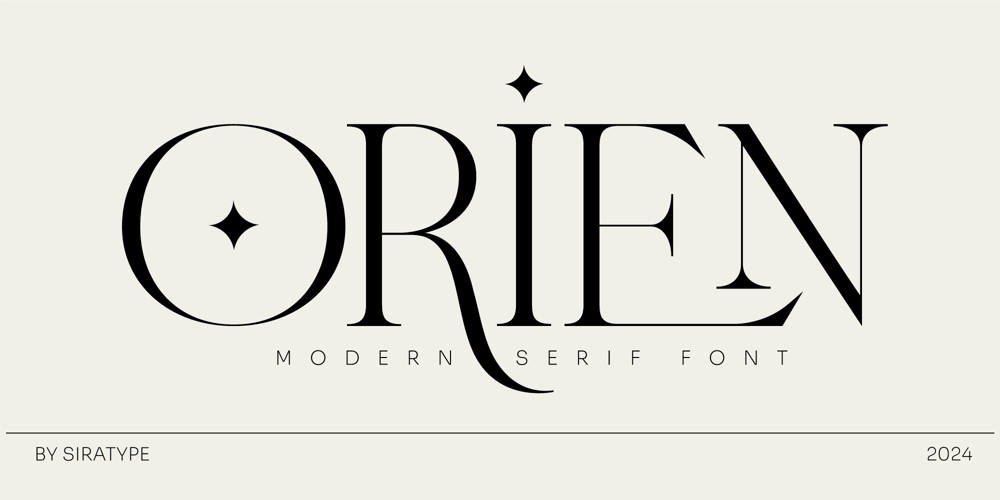
Orien Font Family was designed by Nassira Boufelja and published by Siratype. Orien contains 1 styles and family package options. Orien is a sophisticated and contemporary serif font that seamlessly blends classic serif elements with modern aesthetics. Characterized by its elegant lines and refined details, Orien is perfect for high-end branding, editorial designs, and luxurious typographic compositions. Whether used for headlines, logos, or body text, Orien adds a touch of sophistication and timeless beauty to any project.Features :Unique Serif Design-Ligatures & alternate glyphs-Numbers & punctuation-Multilingual support . . .